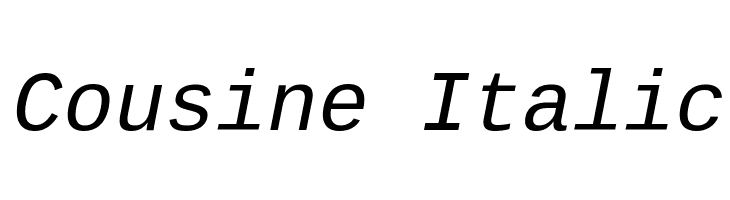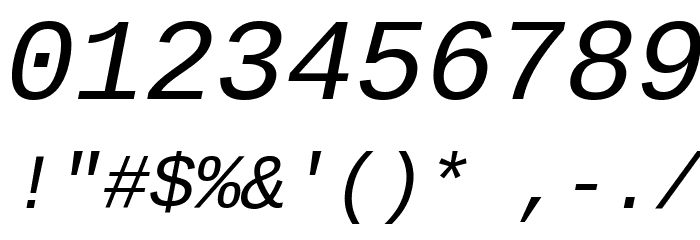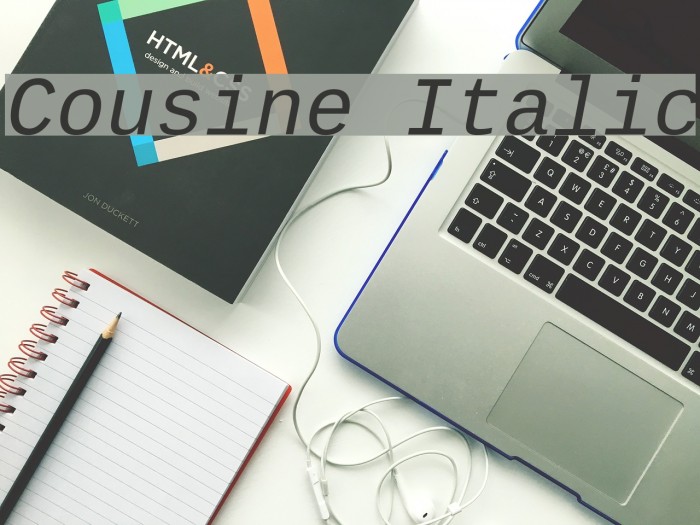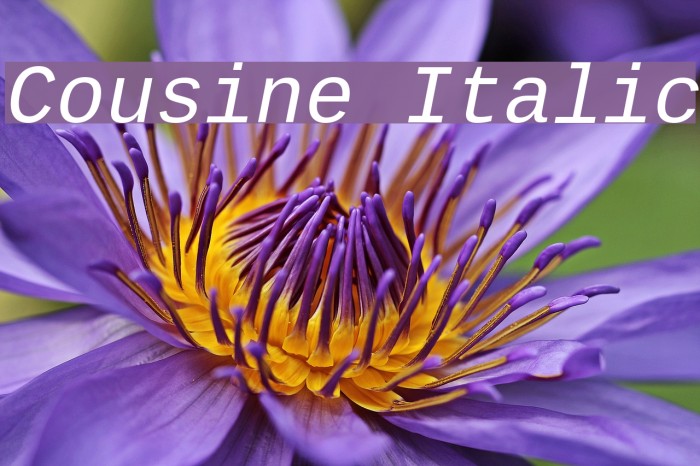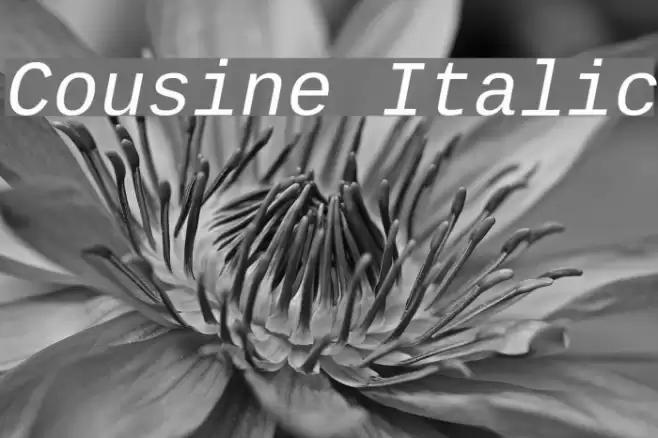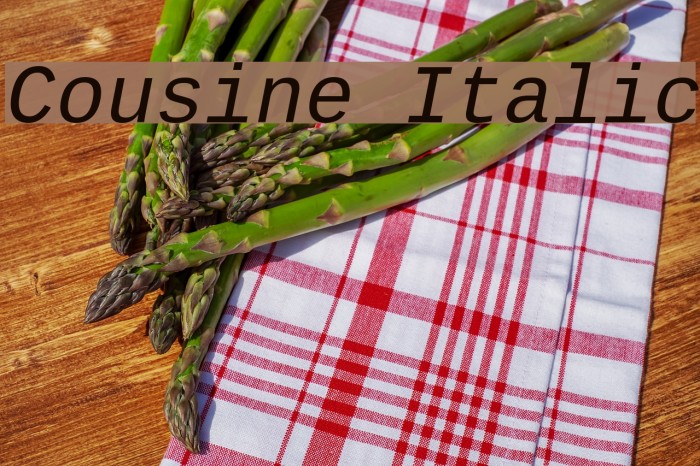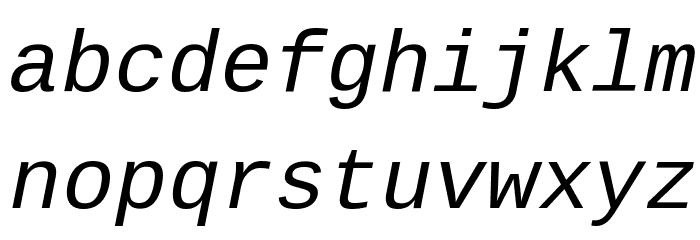
Cousine Italic Font
Cousine Italic Description
This font features a clean and modern design with a slight slant, giving it an italicized appearance. The characters are evenly spaced, providing a balanced and readable look. The strokes are consistent in width, offering a uniform and sleek aesthetic. The font includes a full set of uppercase and lowercase letters, numbers, and a variety of special characters, making it versatile for different applications. Its simplicity and clarity make it suitable for both digital and print media, ensuring legibility across various sizes and resolutions.
| Use Case | Body text, Code, Technical documents |
| Proposed Projects | Ideal for coding environments, technical documentation, and modern web design. |